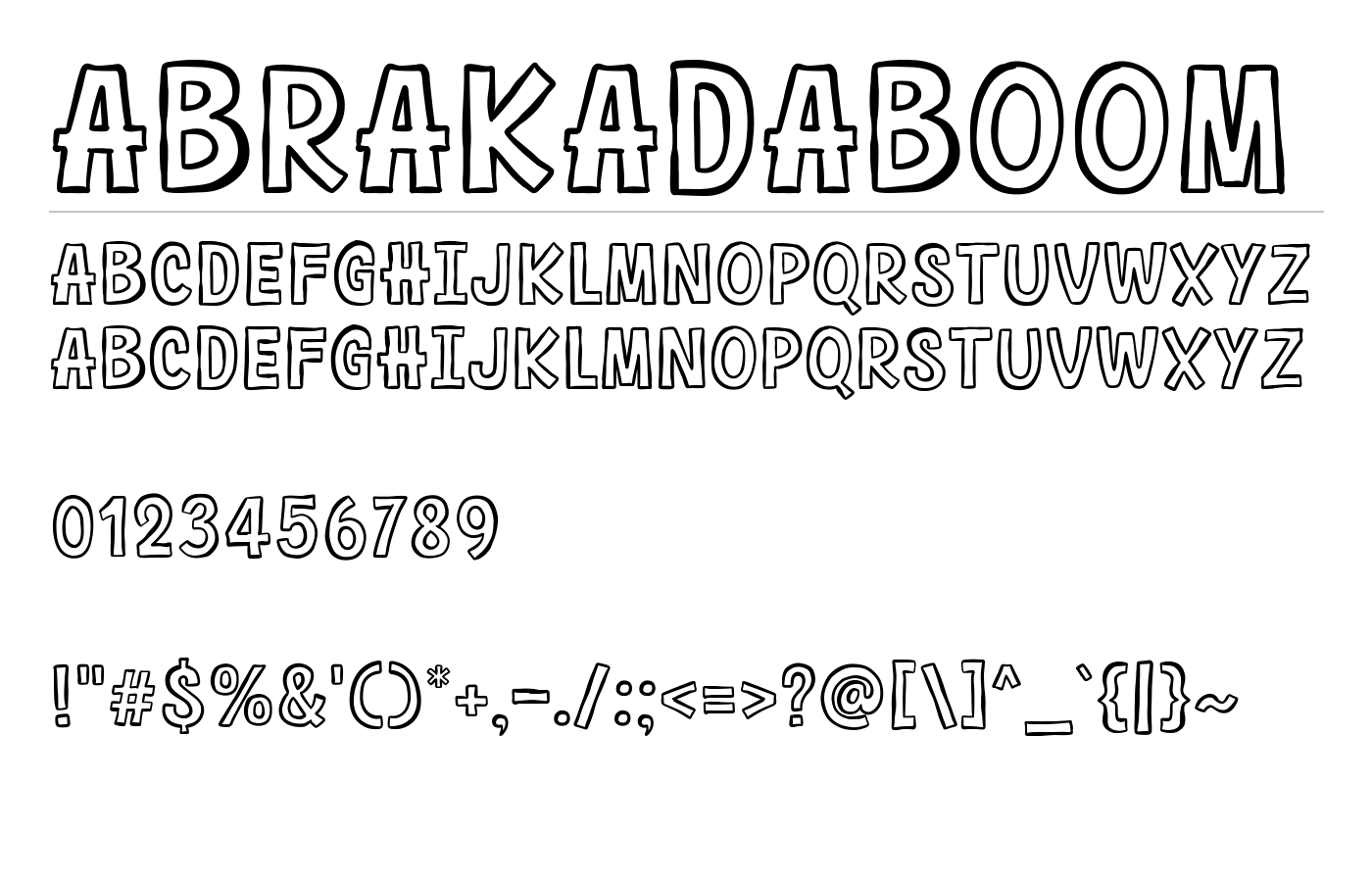
Abrakadaboom is a playful and bold hand-drawn sans serif font with a casual, cartoonish style that features uneven strokes and slightly irregular shapes, giving it a lively and fun personality. Its wide letterforms and medium contrast make it ideal for eye-catching headings, posters, and branding that want to convey creativity and approachability. This font works best for informal designs aimed at children’s products, entertainment, or any context that needs a whimsical, energetic vibe.
Abrakadaboom Font
About Abrakadaboom Font